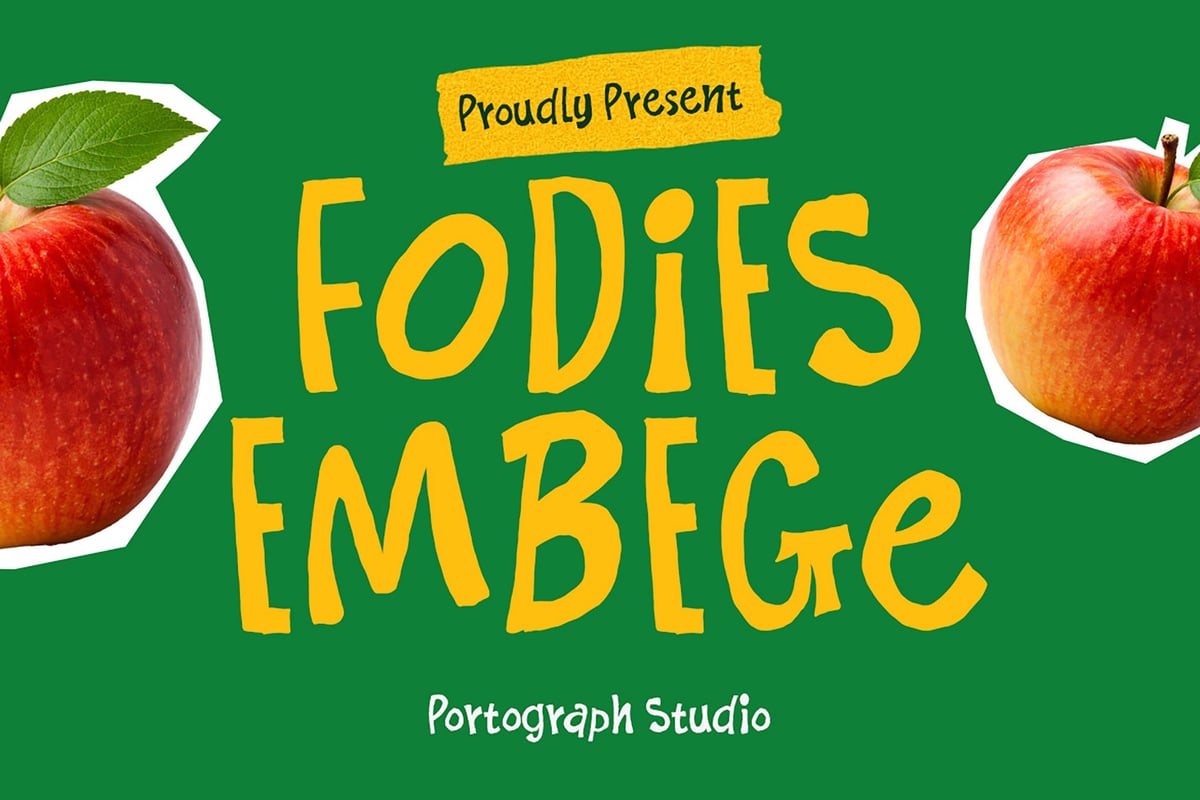
Fodies Embege – Food Font
Bring warmth and authentic charm to your food branding with this playful handwritten display font. Fodies Embege captures the essence of homemade meals and food culture joy through organic strokes and naturally irregular letterforms. This friendly, authentic typeface instantly draws attention while delivering that deliciously personal touch your brand needs. Perfect for pizza shops, burger brands, bakeries, and organic cafés looking to add genuine personality to their typography. The natural han...